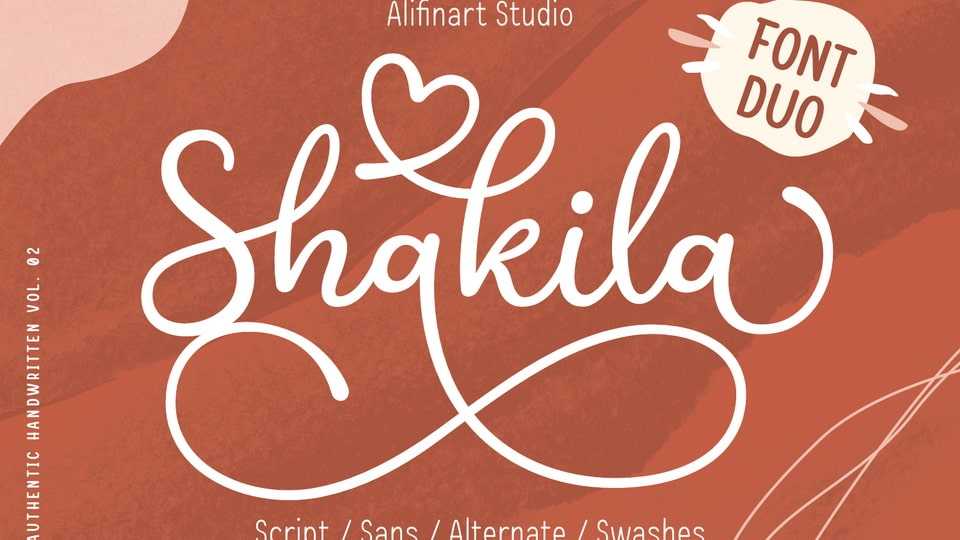
Download Shakila Script font, a modern handwritten typeface. Shakila Script is a unique bold font with a pretty and charming casual style with many variants of beautiful swashes, as well as an alternative to capital letters.
Designer: Alifinart Studio